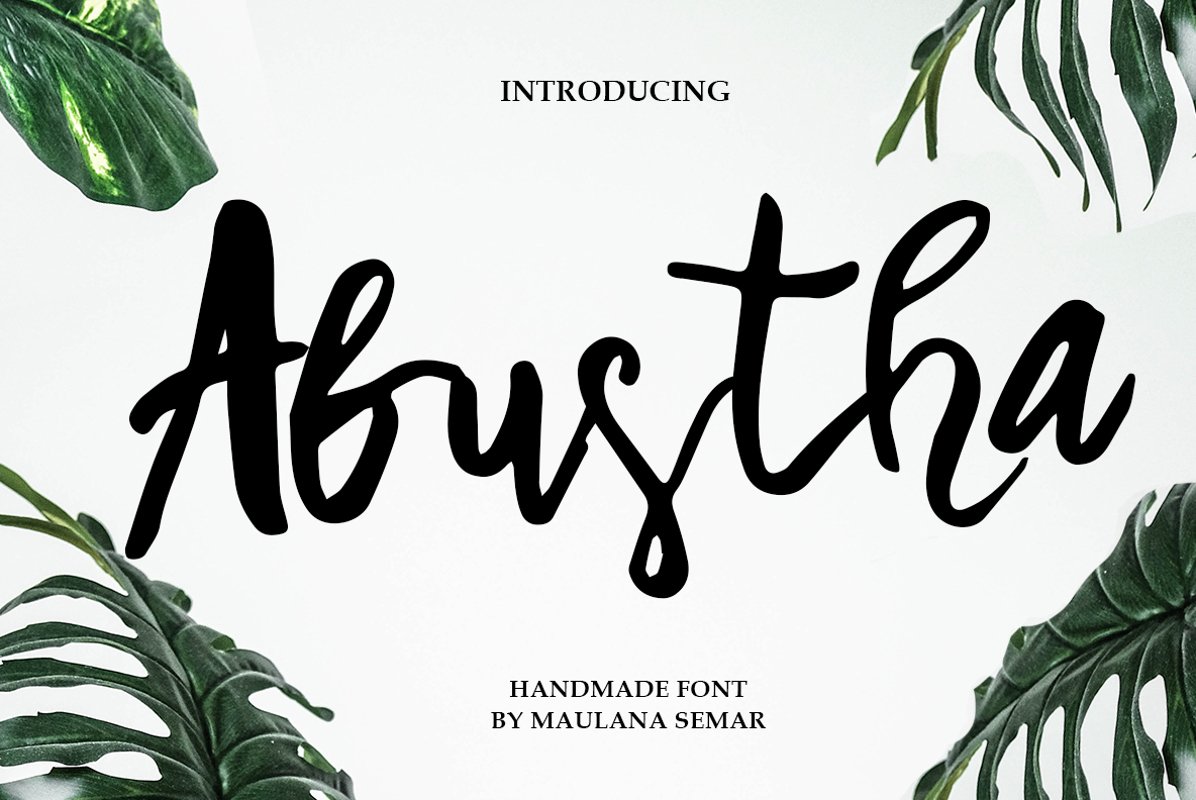
Abustha
Abustha is a beautiful and unique handmade brush script inspired by classic typography and bringing his own style, good and very suitable for use on websites, brands, festival posters, and other art works.
Abustha